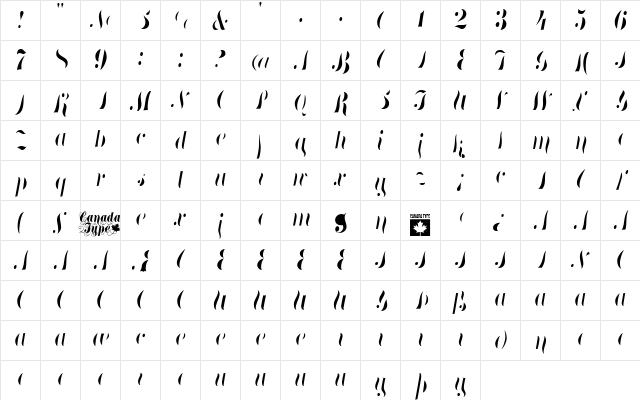
Treasury System Alt Inline Regular
Design Context for Treasury System Alt Inline Typeface
Treasury System Alt Inline brings ornamental detail and strong personality to headlines and identities, where visual impact matters more than quiet functionality.
Font Pairing: Pair with a clean neutral sans-serif for body copy to let Treasury System Alt Inline's character lead without overwhelming the composition.
Pro Tip: Use Treasury System Alt Inline exclusively at display sizes — it was designed to be seen, not read at length. Let a neutral companion handle body copy.